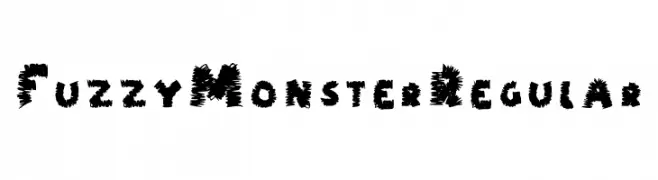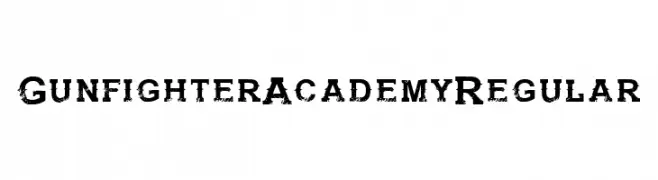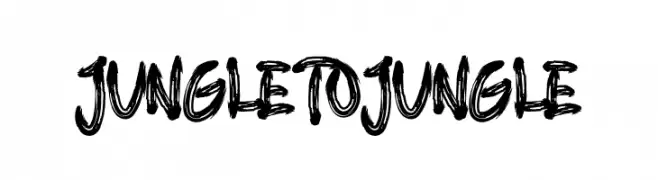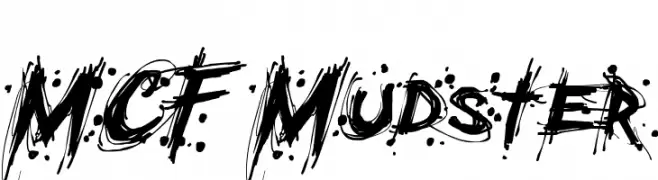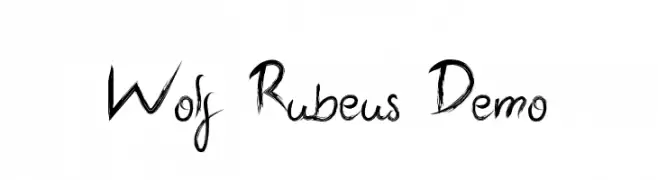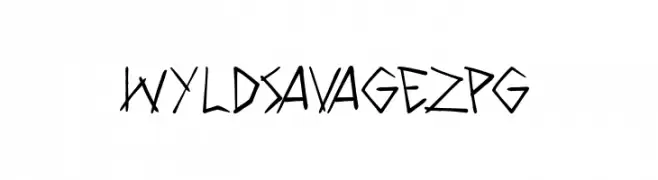
A dynamic brush-style font with rough, textured strokes and a modern calligraphic flair.
A bold, brush-textured font with an adventurous and dynamic style.
A bold, decorative font with a western theme and vintage distressing.
A bold, fuzzy, and chaotic font with jagged edges, perfect for creative projects.
A bold, chaotic font with brush-like strokes and splattered ink effects.
A rugged, hand-drawn font with sharp, angular lines and an edgy aesthetic.
A bold, Western-style font with strong, blocky letterforms and subtle serifs.
A rugged, vintage font with a bold, distressed Western style.
A rugged, rope-like font with a Western, handcrafted style.
A bold, distressed font with a rugged, vintage appearance.